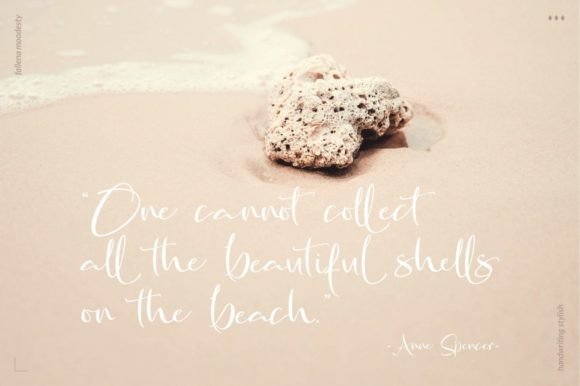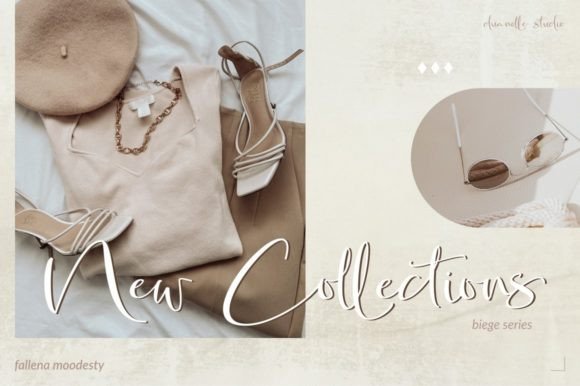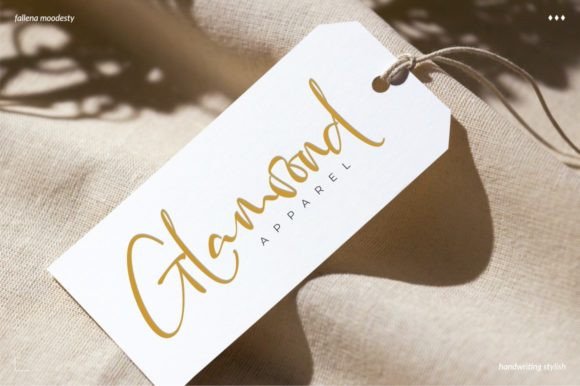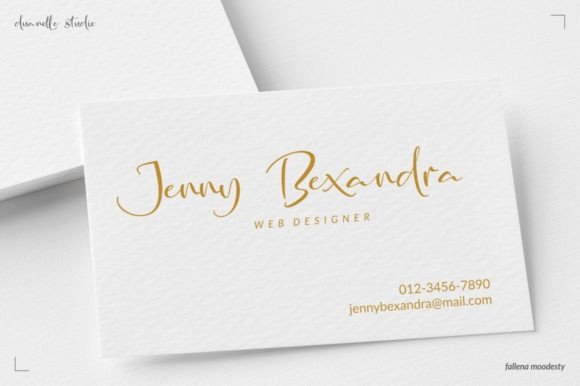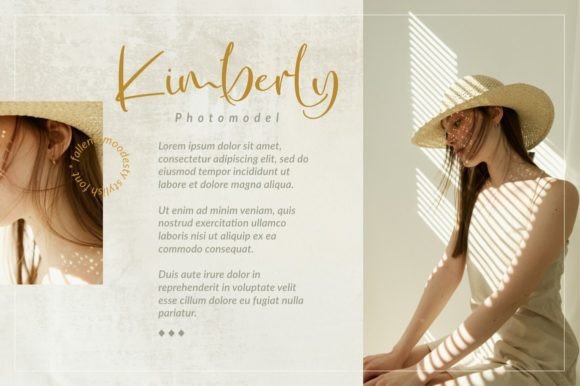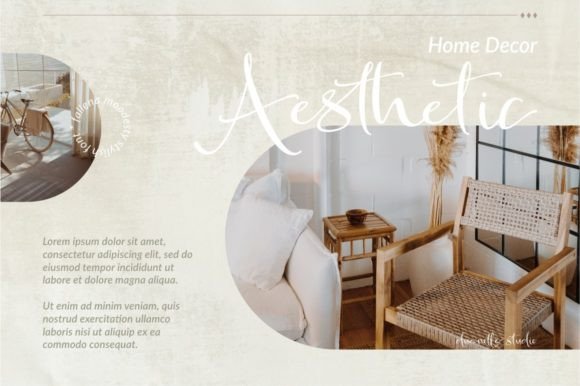
The Elusive Perfect Font: My Encounter with Fallena Moodesty
Ah, the quest for the perfect font. We’ve all been there – stuck in the middle of a design project, scrolling through font libraries, and yet, nothing seems quite right. I recall a particularly frustrating moment when a client requested a logo that exuded elegance and modernity. As I sifted through my font collection, I stumbled upon Fallena Moodesty, a unique handwritten script font that would change the game.
First Impressions: A Love Letter to Fallena Moodesty
Fallena Moodesty is a true gem. This elegant, modern, and stylish font has captured my heart, and I’m excited to share its charm with you. Here’s what I love about it:
- ✨ Elegant and refined, perfect for high-end branding projects
- 💫 Supports OpenType features, glyphs, and stylistic alternates for added versatility
- 📸 Beautifully suited for photography and design projects that require a touch of sophistication
A Few Quirks to Keep in Mind
While Fallena Moodesty is an exceptional font, it’s not without its quirks:
- 🤔 Some characters may require manual kerning for optimal spacing
- ⚠️ Limited availability of Cyrillic and non-English characters
The Story Behind Fallena Moodesty
Fallena Moodesty was crafted with passion and dedication by a talented type designer. Although the designer’s story is shrouded in mystery, it’s clear that Fallena Moodesty was created to fill a gap in the font market – a elegant, modern script font that exudes sophistication and style.
| Font Name | Fallena Moodesty Font |
| Author | duanollestudio |
| What is Fallena Moodesty best suited for? | Fallena Moodesty is perfect for branding projects, logos, product packaging, product design, labels, photography, watermarks, invitations, wedding designs, stationery, advertisements, social media posts, and any project that requires a taste for classy handwriting. |
| Is Fallena Moodesty suitable for body text? | While Fallena Moodesty is highly legible, it’s recommended for headlines, titles, and short paragraphs due to its script nature. |
| Are there any similar fonts to Fallena Moodesty? | Yes, some similar fonts include Carolyna Pro, Adorn, Lust Script, and Alex Brush, each with its unique personality and use cases. |